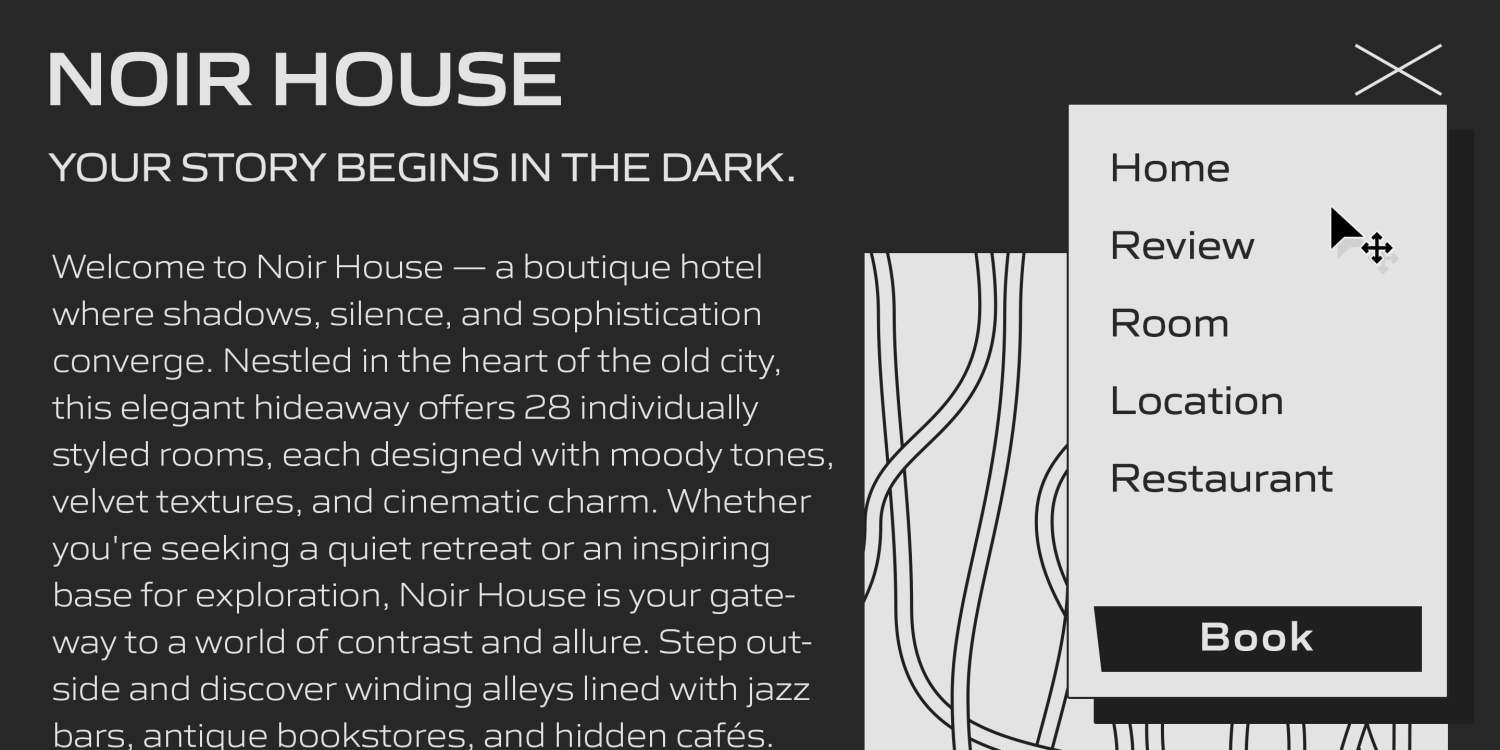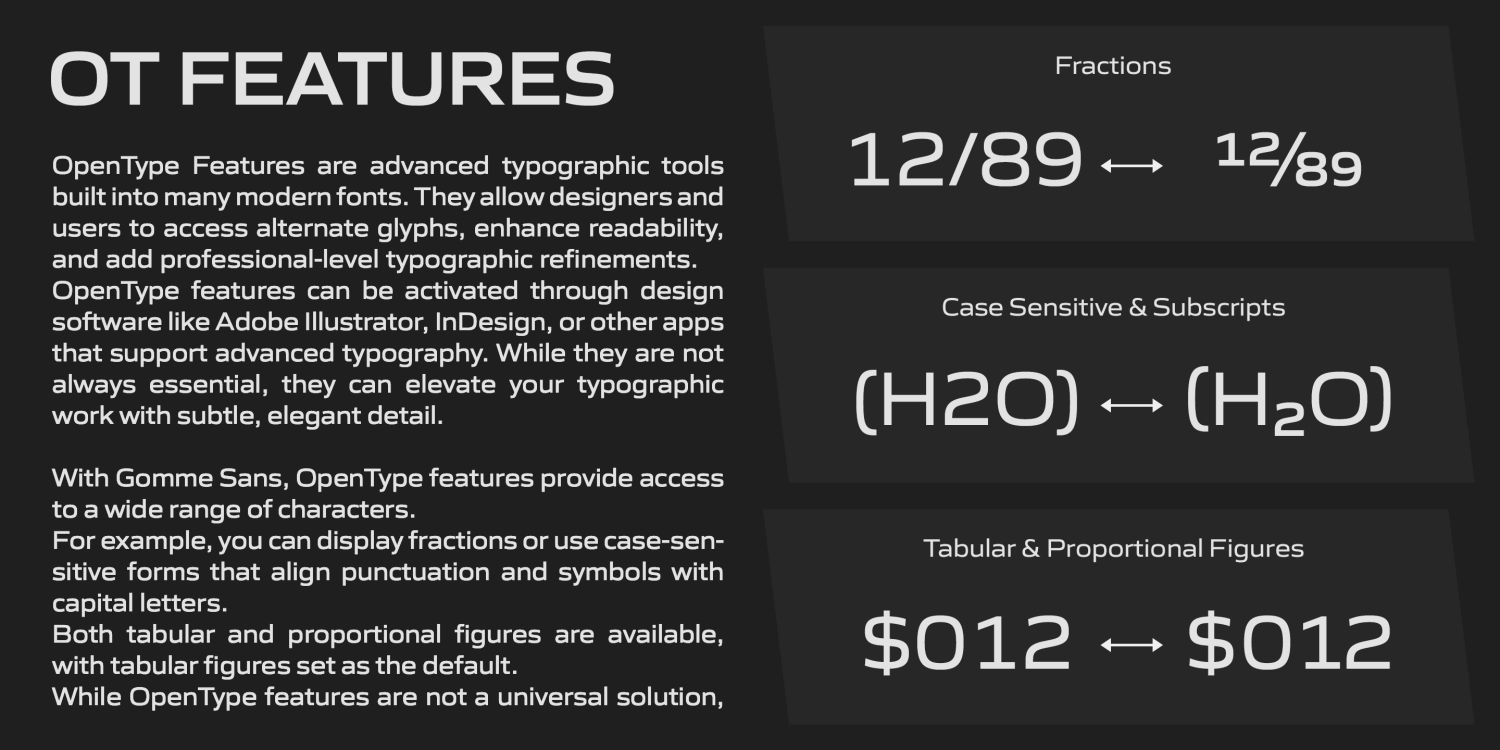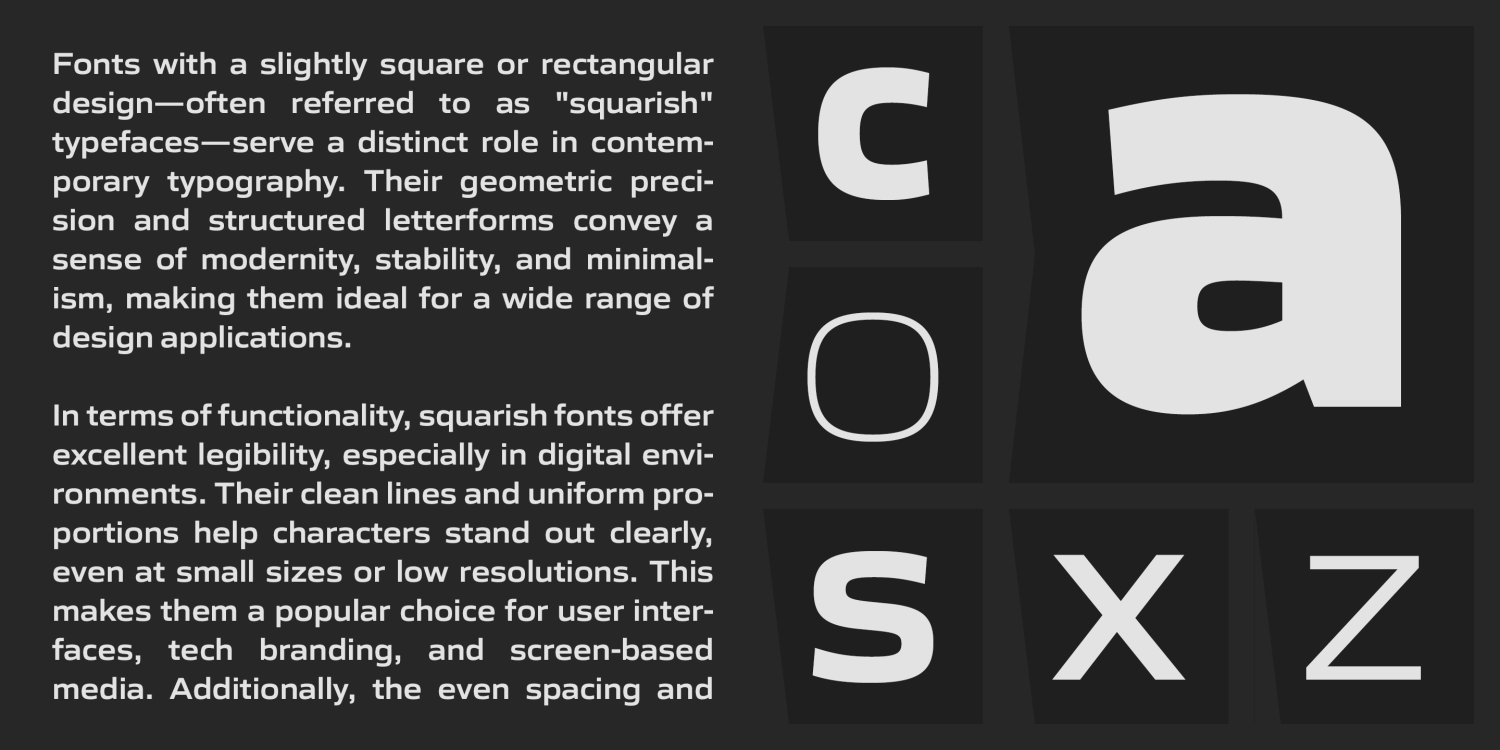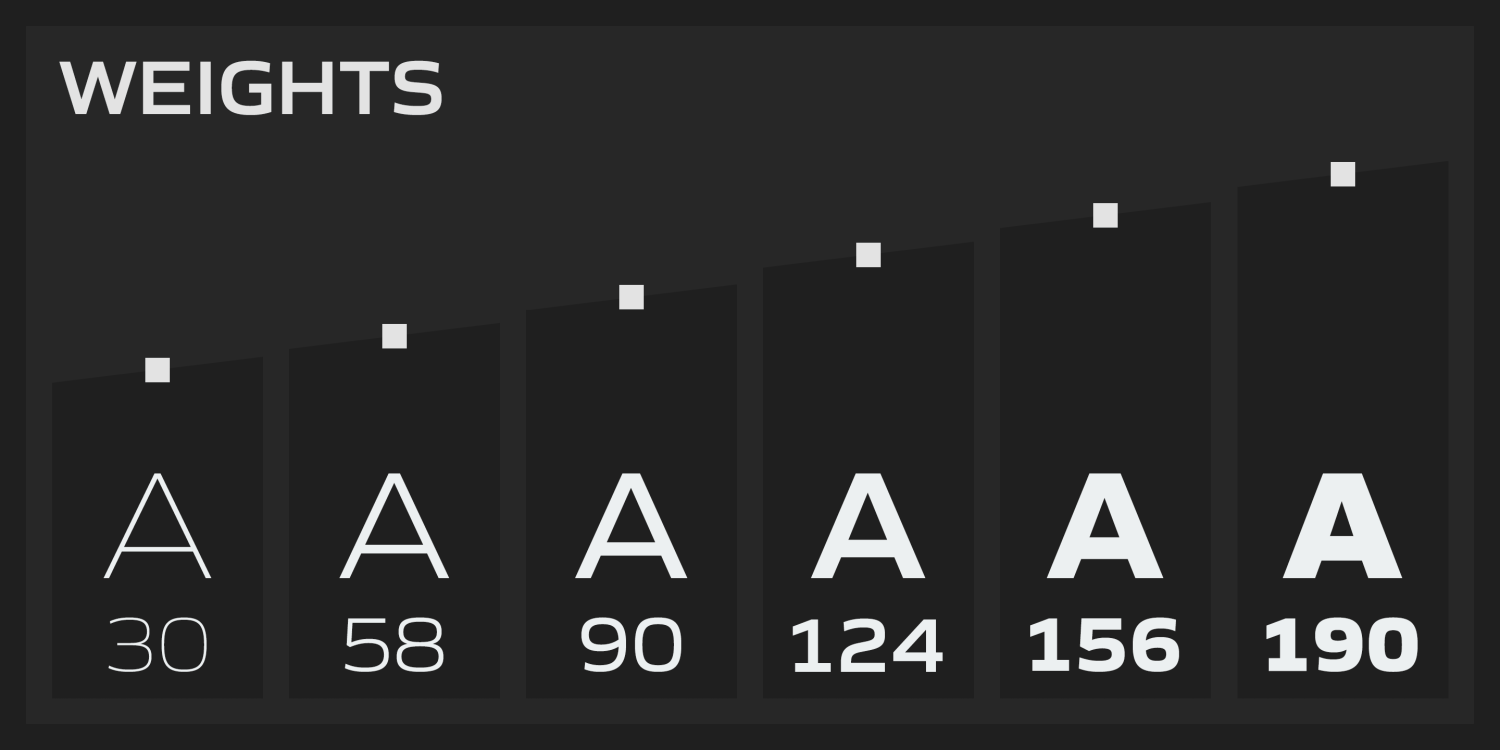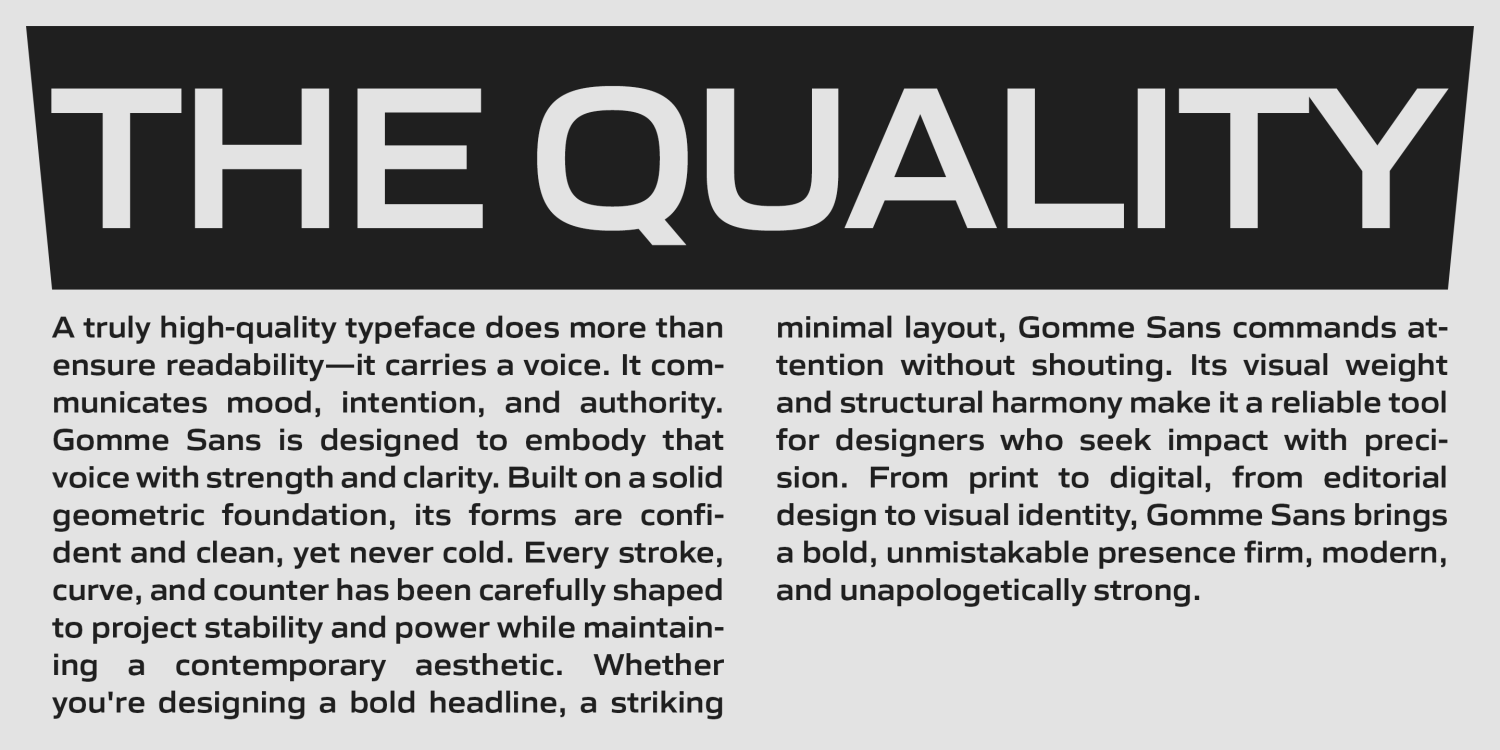
Gomme Sans
Font Family by Dharma Type
Gomme Sans is a wide, masculine sans-serif type family designed by Ryoichi Tsunekawa, tailored for text and display use.
The family includes 6 weights, from ExtraLight to ExtraBold, each with matching italics, offering strong typographic flexibility.
With its squarish, bold letterforms, Gomme Sans is designed to create a powerful visual impact.
At the same time, its sophisticated construction and large x-height ensure excellent legibility and readability, even at small sizes on screen.
Gomme Sans supports a wide range of European languages, including Western, Central, and South Eastern European languages, as well as Afrikaans.
It also includes a comprehensive set of OpenType features—such as proportional figures, superior/inferior figures, denominators, numerators, fractions, ordinals, and case-sensitive forms—making it a dependable and versatile choice for modern typography.